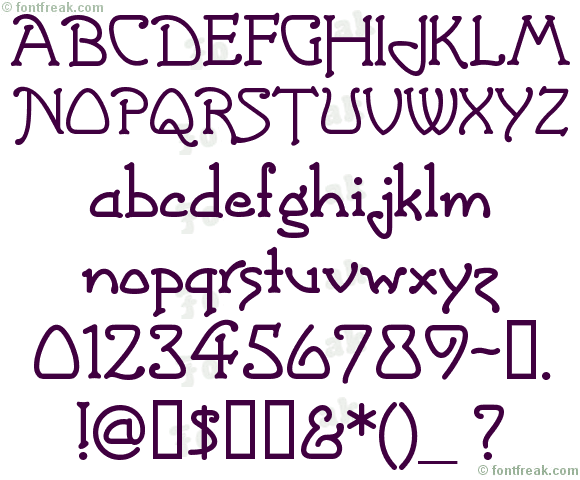
Grasshopper
The Grasshopper font, designed by Nick Curtis, is a captivating decorative typeface that combines playful elegance with a touch of whimsy. This font is characterized by its unique, organic forms that evoke a sense of movement, reminiscent of the lively grasshopper itself. With its moderate stroke weight and gentle curves, Grasshopper offers a balance between readability and artistic flair, making it visually appealing for a variety of applications.
The visual characteristics of Grasshopper include an irregular baseline and slightly exaggerated ascenders and descenders, which contribute to its dynamic appearance. The spacing is well-considered, allowing each letter to breathe while maintaining a cohesive flow. The overall design incorporates subtle decorative elements that enhance its charm without overwhelming the viewer, making it an excellent choice for creative projects.
Grasshopper excels in specific use cases where a fun and engaging typographic style is essential. It is ideal for wedding invitations, where its whimsical nature adds a romantic touch. Additionally, it can be effectively used in movie posters, particularly for family-friendly films that aim to capture attention. Restaurant menus can benefit from Grasshopper’s playful tone, making it suitable for eateries that focus on a casual and inviting atmosphere. Moreover, this font works wonderfully for branding and marketing materials, targeting a youthful audience.
The target audience for Grasshopper includes graphic designers, small business owners, and content creators who seek to infuse personality into their work. Its freeware license makes it accessible for anyone looking to enhance their designs without breaking the bank. The Grasshopper font free download allows users to experiment with this unique typeface, making it an excellent addition to any designer's toolkit. Ultimately, Grasshopper stands out due to its distinctive style and versatility, making it a delightful choice for a range of creative endeavors.